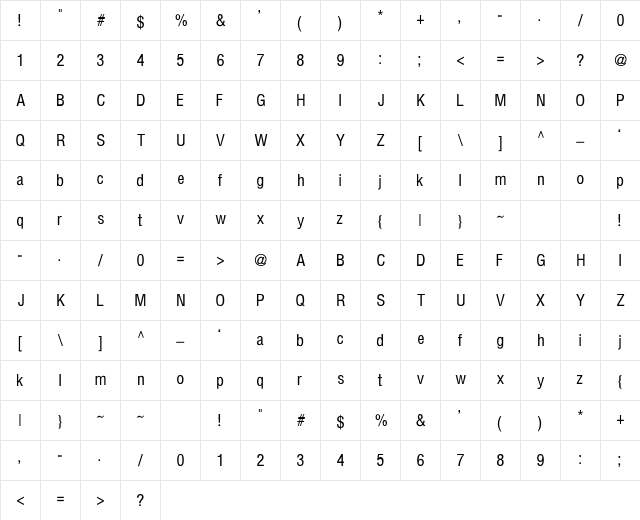
HelvCND_R-Normal Regular Font Preview
HelvCND_R-Normal Regular
Design Context for HelvCND_R-Normal Typeface
HelvCND_R-Normal offers clean, dependable letterforms without strong stylistic allegiance, making it a practical choice for designers who need flexibility.
Pro Tip: Use HelvCND_R-Normal in both headline and body roles to test its range before committing to a single application.